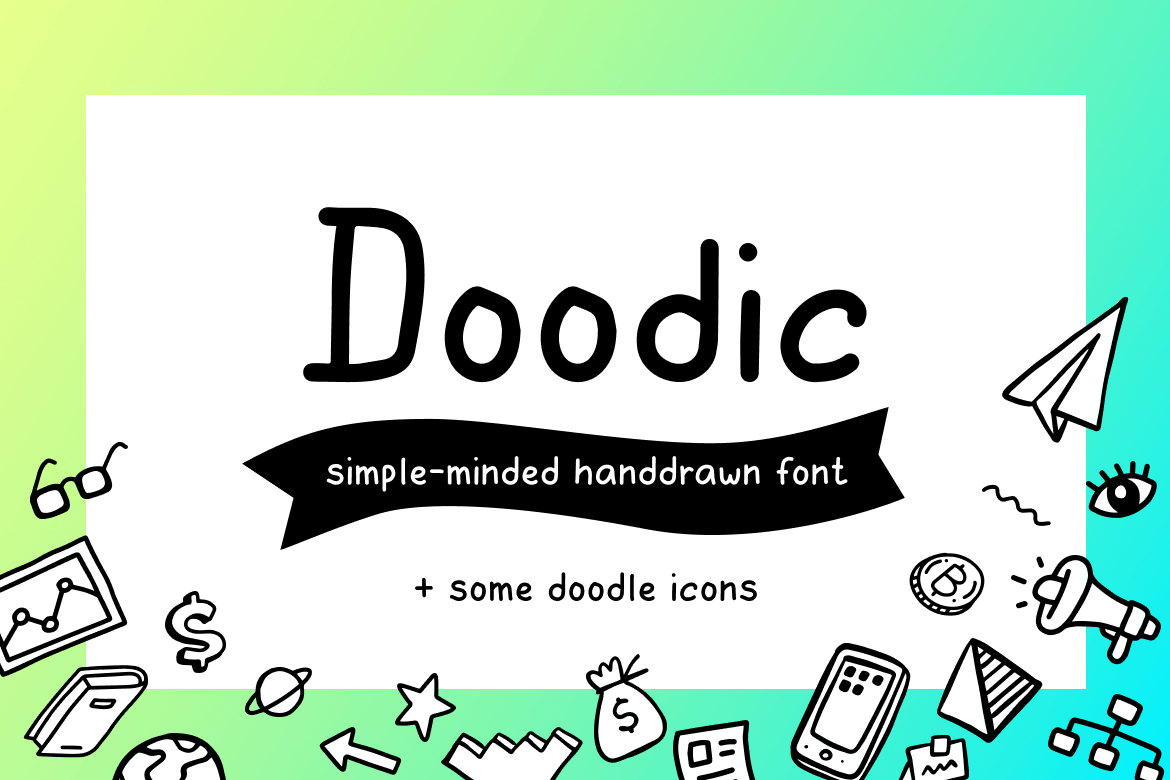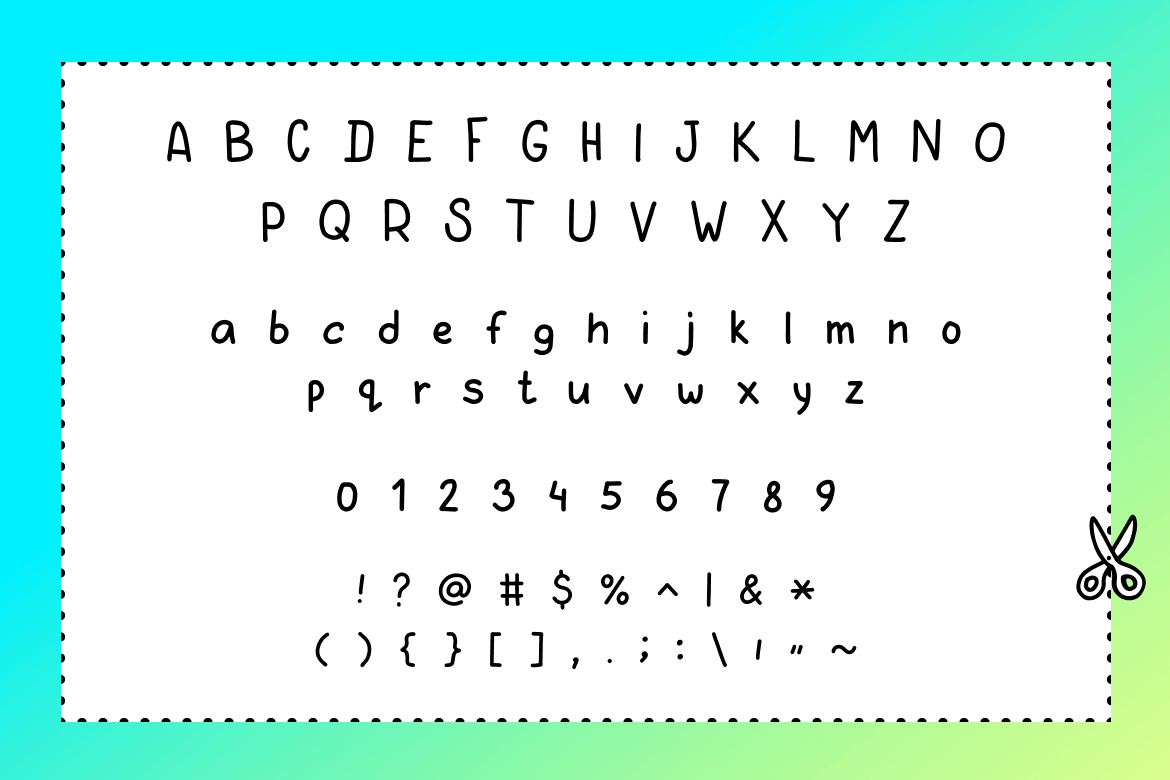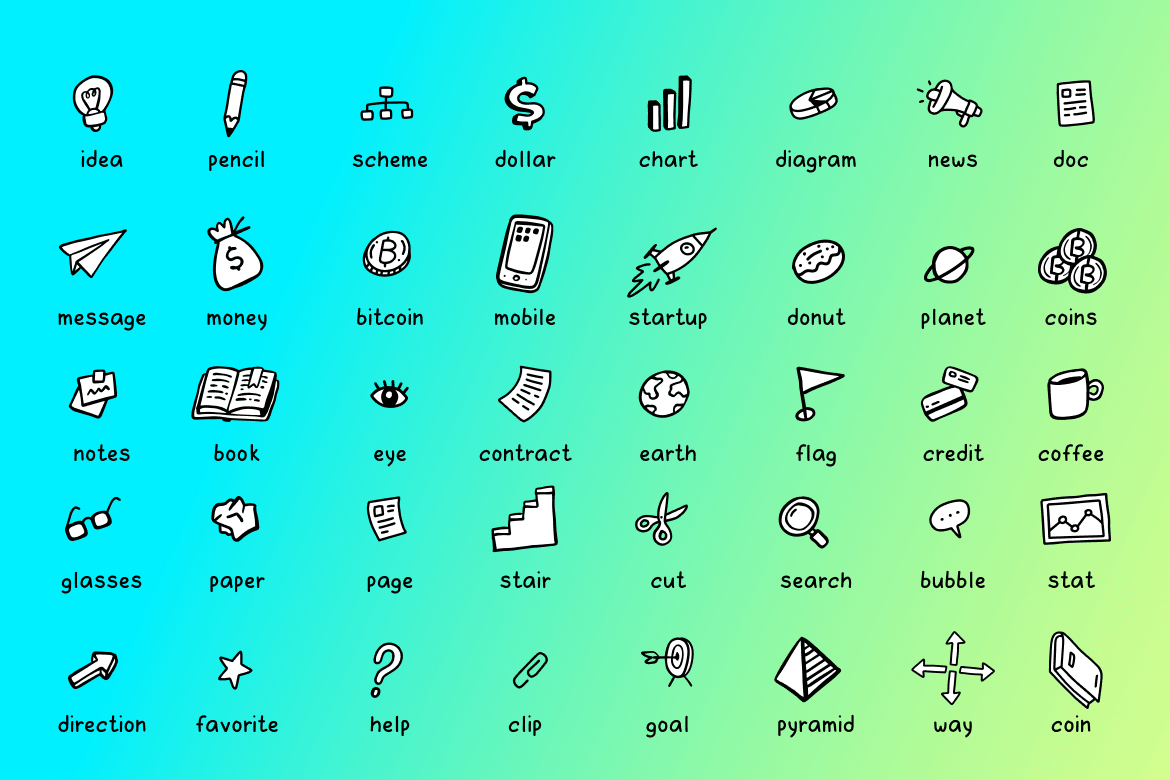
Doodic| font with doodle icons
Doodic is a cute sans serif font designed with rounded edges. Simple and playful, it is the perfect font for design doodle illustrations. The font is supplemented with business line art icons for more simple design creation.
- uppercase letters
- lowercase letters
- numbers & punctuation
- set of line art icons